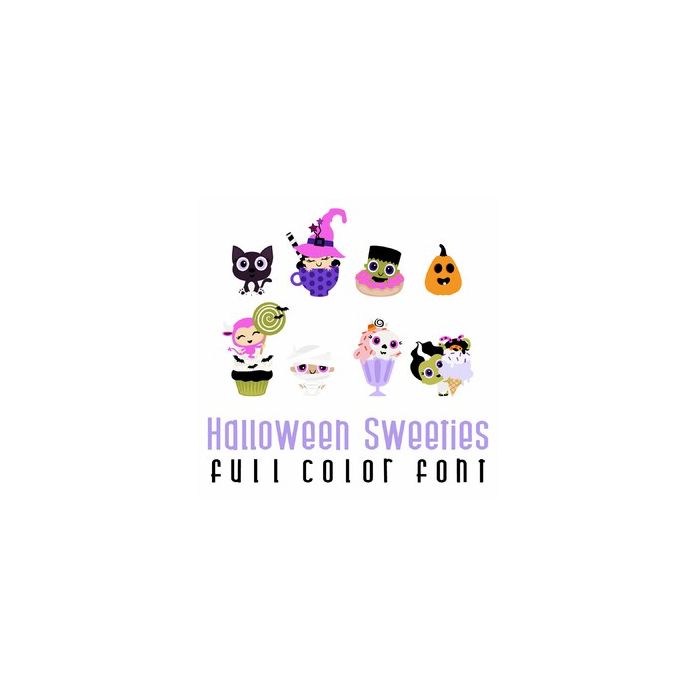
This adorable full color doodlebat font features adorable Halloween monsters and sweets. Perfect for cards, crafts, gifts, decor, scrap book pages, planner stickers and more!